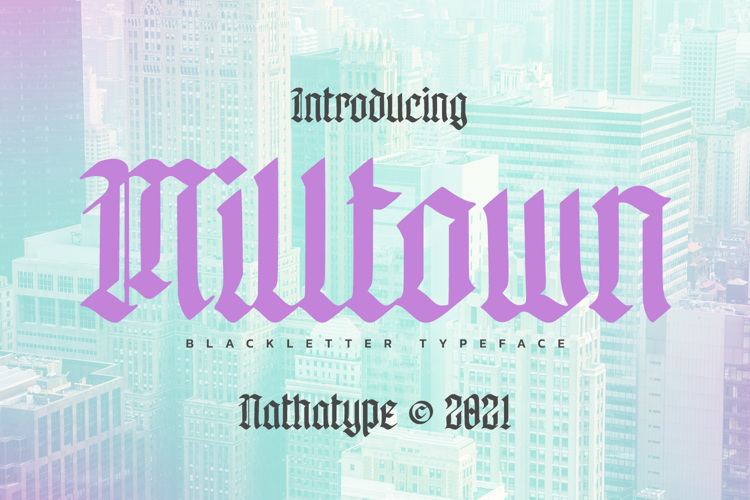
Milltown Font
Product Description:
We proudly present you the Milltown, a spectacular blackletter font to express a classic vintage yet elegant display in curvy letters and artistic details. Milltown’s unique letters have various thickness levels to be visually lovely. In addition, this font is applicable for bigger-sized texts to be more legible.
Features: